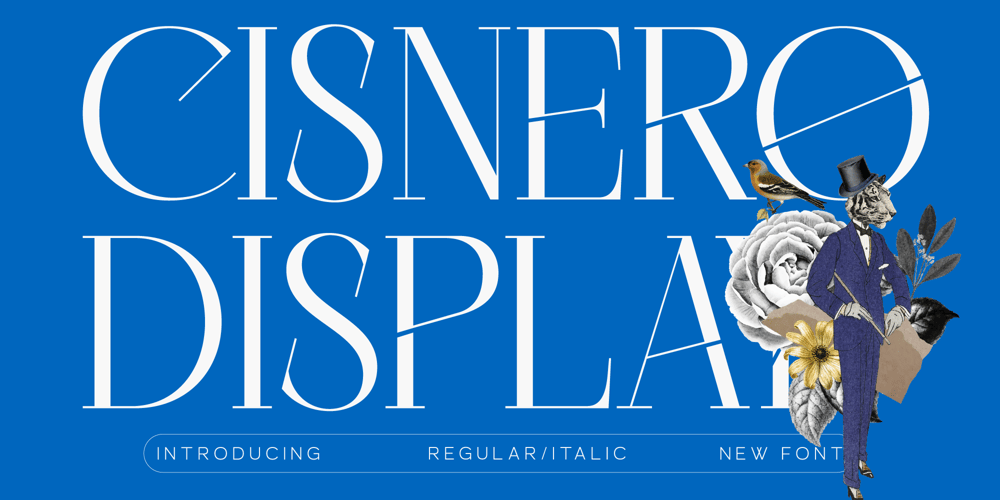
Cisnero
Cisnero font
Cisnero Font Family was designed by Heru Utama Putra and published by Letterena Studios. Cisnero contains 2 styles and family package options. Cisnero is a mdern and classic serif typeface that has its own unique style and modern look. This typeface is perfect for an elegant & luxurious logo, book or movie title design, fashion brand, magazine, clothes, lettering, quotes, and so much more.